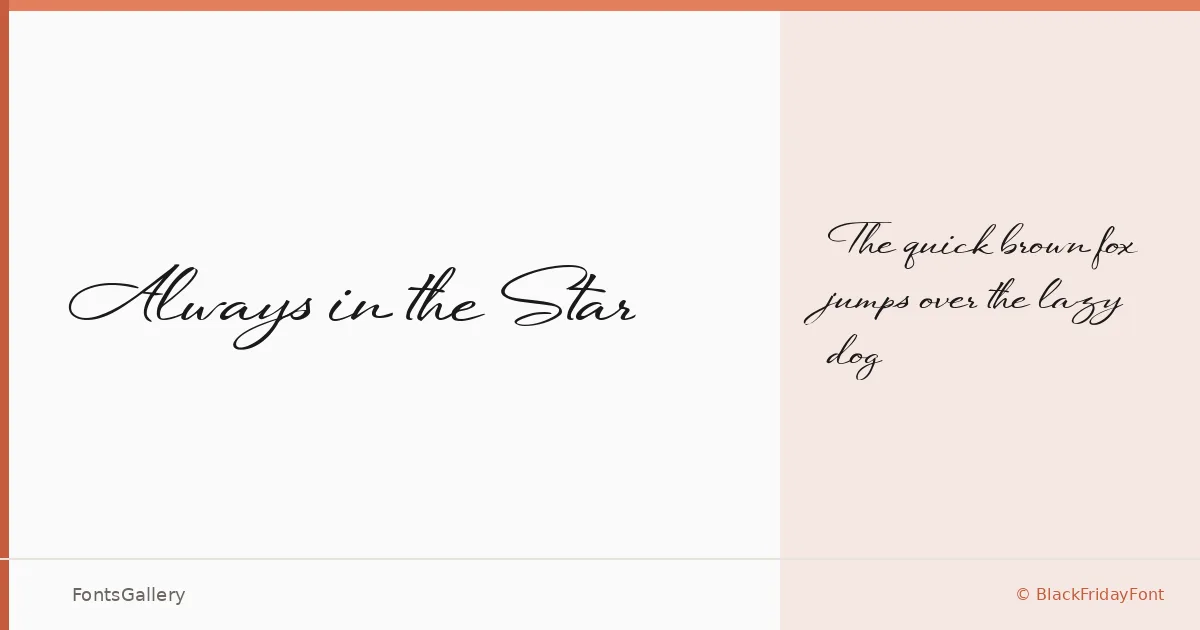
About Always in the Star Font
There is a particular quality to this script — the kind of flowing, connected letterforms that feel handwritten in the best sense, unhurried and deliberate. BlackFridayFont released Always in the Star as a single Regular weight, a TTF built around a classic romantic sensibility that leans toward ceremony and occasion rather than everyday body text.
The script sits squarely in elegant, luxury territory — the sort of face you reach for when the mood calls for something that reads as carefully chosen. Its Latin character set carries a romantic warmth without tipping into excess, and even at a single weight the letterforms have enough personality to carry a headline or a centered inscription on their own. The TTF format means it drops cleanly into most standard workflows.
The sweet spot is anywhere the occasion matters: wedding stationery, invitation cards, certificates, and greeting cards where the script signals care and attention. It also holds up well in social media graphics where a single elegant line of display lettering does the work. For contrast and hierarchy, the listed pairings — Canela, Helvetica, ABC Arizona, Asap, and Anglecia Pro — each offer something different, from warm serif grounding to clean neutral structure alongside the script.